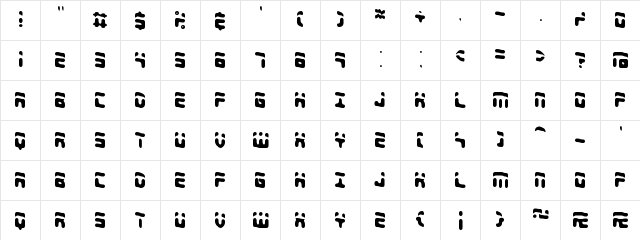
Foreshadow BRK Normal Free Font
Foreshadow BRK Normal
Design Context for Foreshadow BRK
Foreshadow BRK is built around its visual character rather than neutral utility - its distinctive forms are designed to make an impression at display sizes.
Font Pairing: Pair with a clean neutral sans-serif for body copy to let Foreshadow BRK's character lead without overwhelming the composition.
Pro Tip: Use Foreshadow BRK exclusively at display sizes - it was designed to be seen, not read at length. Let a neutral companion handle body copy.